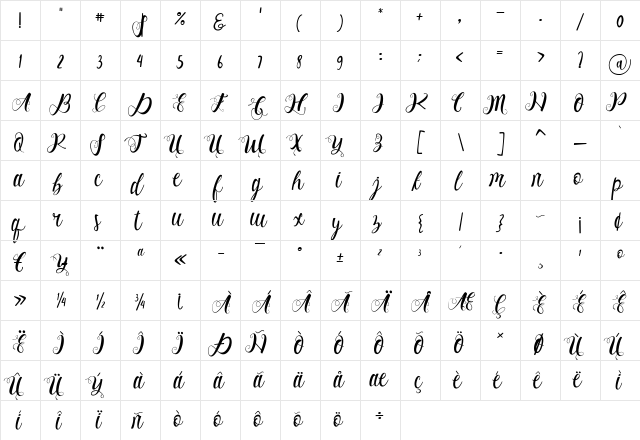
Alhenya Script Regular
| Foundry | Alstudiossa |
| Designer | Alstudiossa |
Design Context for Alhenya Script Typeface
Alhenya Script brings a calligraphic fluidity to the page — its connecting strokes and expressive curves give it an unmistakably human quality.